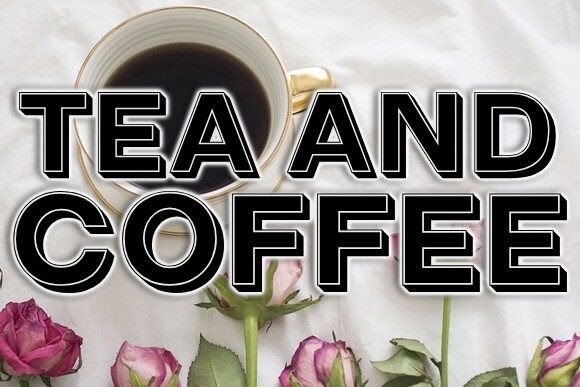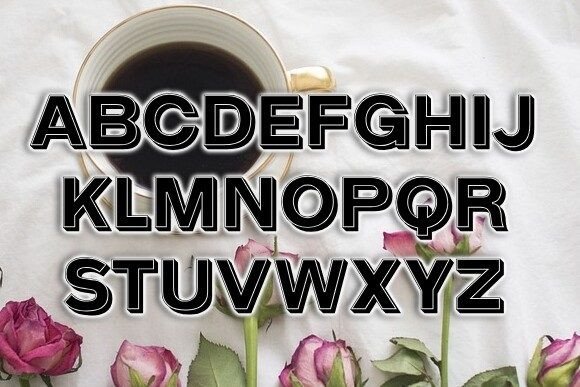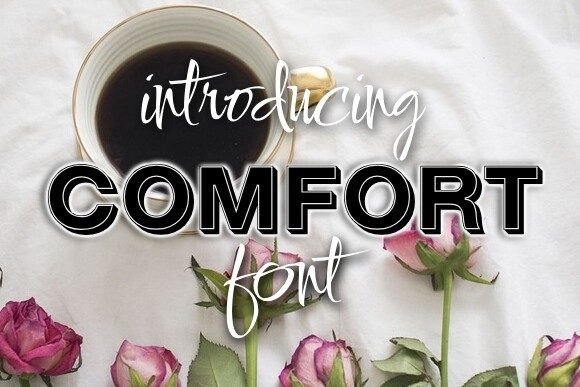
Introducing Comfort Font: The Ultimate Sans Serif Typeface for Your Designs
Are you tired of using the same old fonts for your designs? Look no further! Comfort Font is here to revolutionize the way you create. This awesome sans serif typeface is perfect for any design project, from posters and flyers to t-shirts and more. In this article, we’ll dive into the world of Comfort Font and explore its features, benefits, and uses.
What is Comfort Font?
Comfort Font is a modern sans serif typeface designed to provide a comfortable reading experience. Its clean and simple lines make it easy to read, even at small sizes. The font is highly versatile and can be used for a wide range of design projects, from print materials to digital media.
Key Features of Comfort Font
- Clean and Simple Design: Comfort Font features a clean and simple design that makes it easy to read and understand.
- Sans Serif: The font is a sans serif typeface, which means it doesn’t have serifs or feet.
- Highly Versatile: Comfort Font can be used for a wide range of design projects, from posters and flyers to t-shirts and more.
- Easily Readable: The font is designed to be easily readable, even at small sizes.
Benefits of Using Comfort Font
So, why should you use Comfort Font for your designs? Here are just a few benefits:
- Improved Readability: Comfort Font is designed to be easily readable, which means your audience will be able to quickly and easily understand your message.
- Enhanced Visual Appeal: The font’s clean and simple design makes it visually appealing and perfect for designs where you want to make a statement.
- Flexibility: Comfort Font can be used for a wide range of design projects, from print materials to digital media.
- Unique Look: Comfort Font has a unique look that will set your designs apart from the rest.
Uses of Comfort Font
Comfort Font is perfect for a wide range of design projects, including:
- Posters: Use Comfort Font to create eye-catching posters that will grab your audience’s attention.
- Flyers: The font is perfect for creating flyers that are easy to read and understand.
- T-Shirts: Comfort Font is a great choice for designing t-shirts that will make a statement.
- Digital Media: The font can be used for digital media, such as website headers, social media graphics, and more.
Tips for Using Comfort Font
Here are a few tips for using Comfort Font in your designs:
- Use it with a contrasting background: Comfort Font looks best when used with a contrasting background.
- Experiment with different sizes: The font is highly versatile and can be used at a variety of sizes.
- Pair it with other fonts: Comfort Font can be paired with other fonts to create a unique and visually appealing design.
In conclusion, Comfort Font is an awesome sans serif typeface that will look awesome on any of your designs. Its clean and simple design makes it easy to read and understand, and its highly versatile nature makes it perfect for a wide range of design projects. Whether you’re a designer or a crafter, Comfort Font is a great choice for your next project.